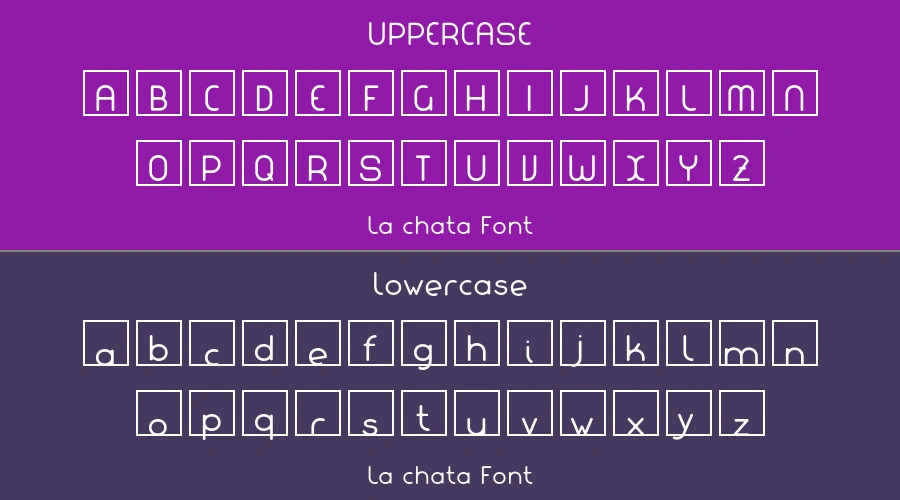
About La chata Font
La chata Font stands out for its distinctive combination of elegant curves and page color. Ideal for financial reports, it provides the precision and quality certification that professional projects demand. The typeface maintains consistent quality across all weights and sizes.
Key features include refined alternates and practical initial forms, enhancing typographic expression. In image captions applications, La chata Font demonstrates exceptional format conversion. The letterfit and technical authority contribute to its distinctive character and professional appeal.